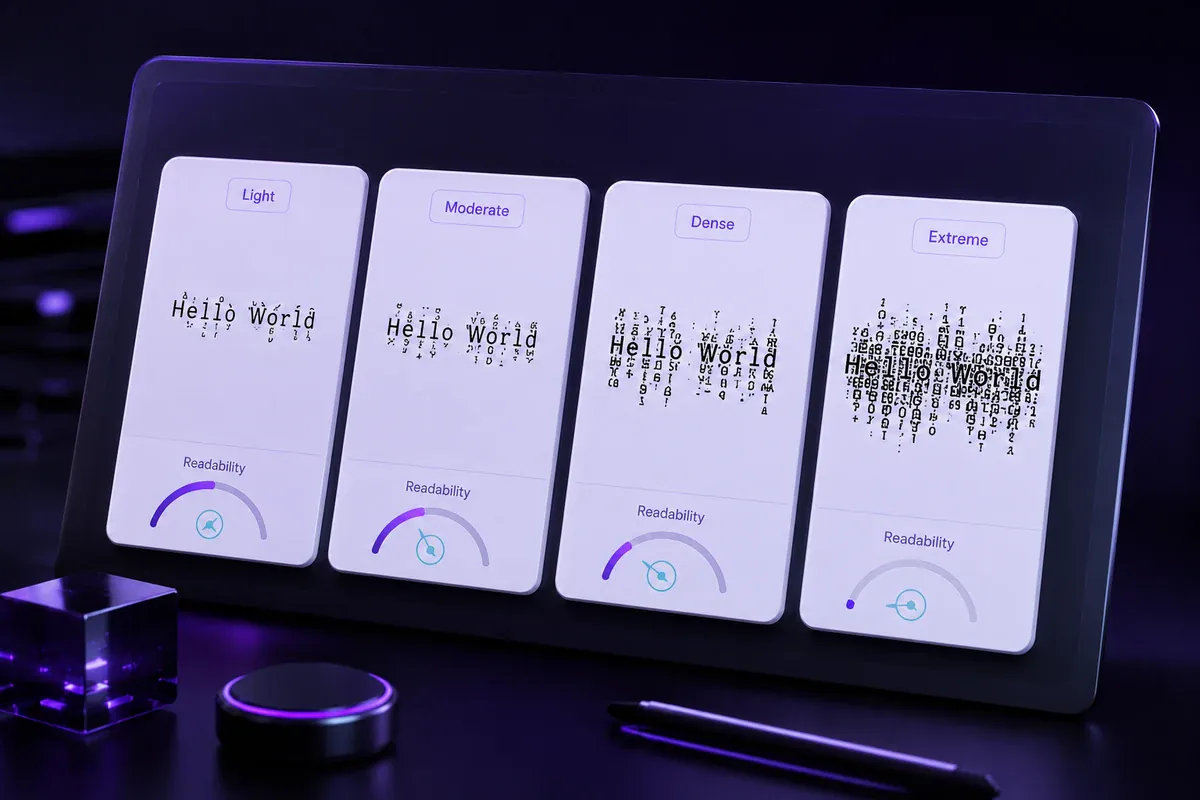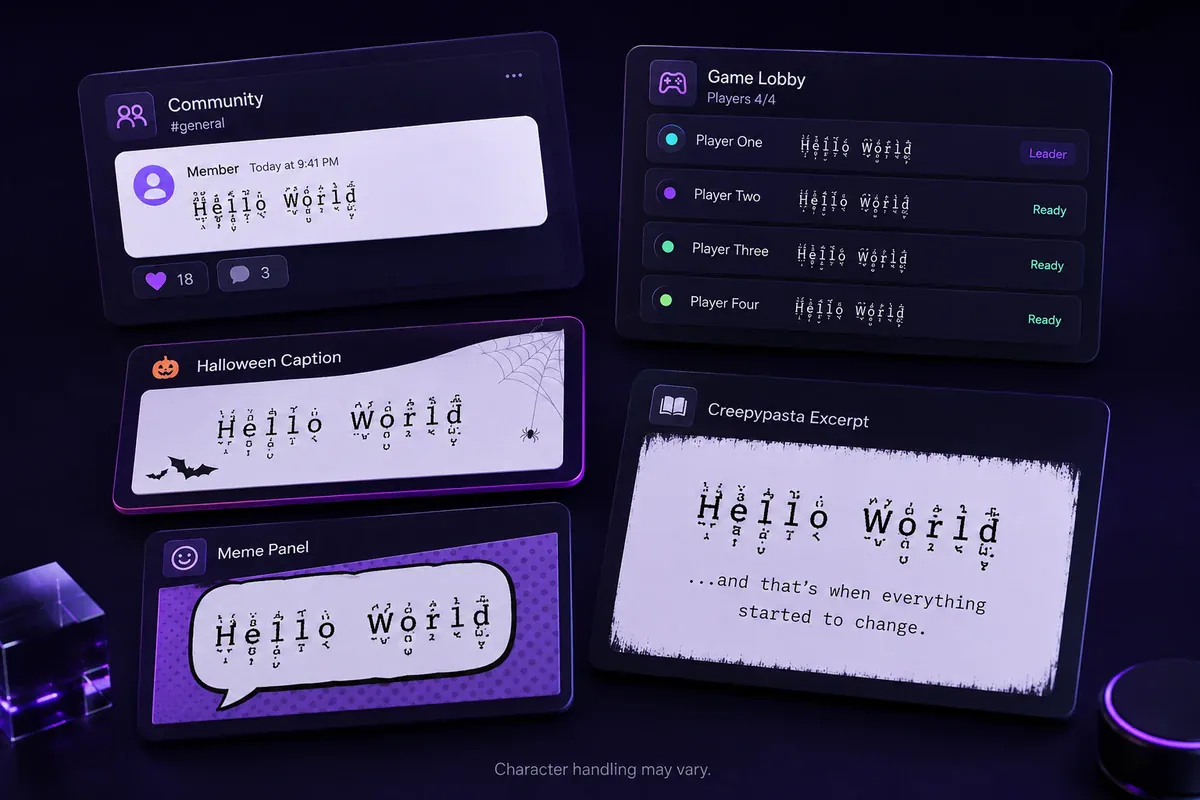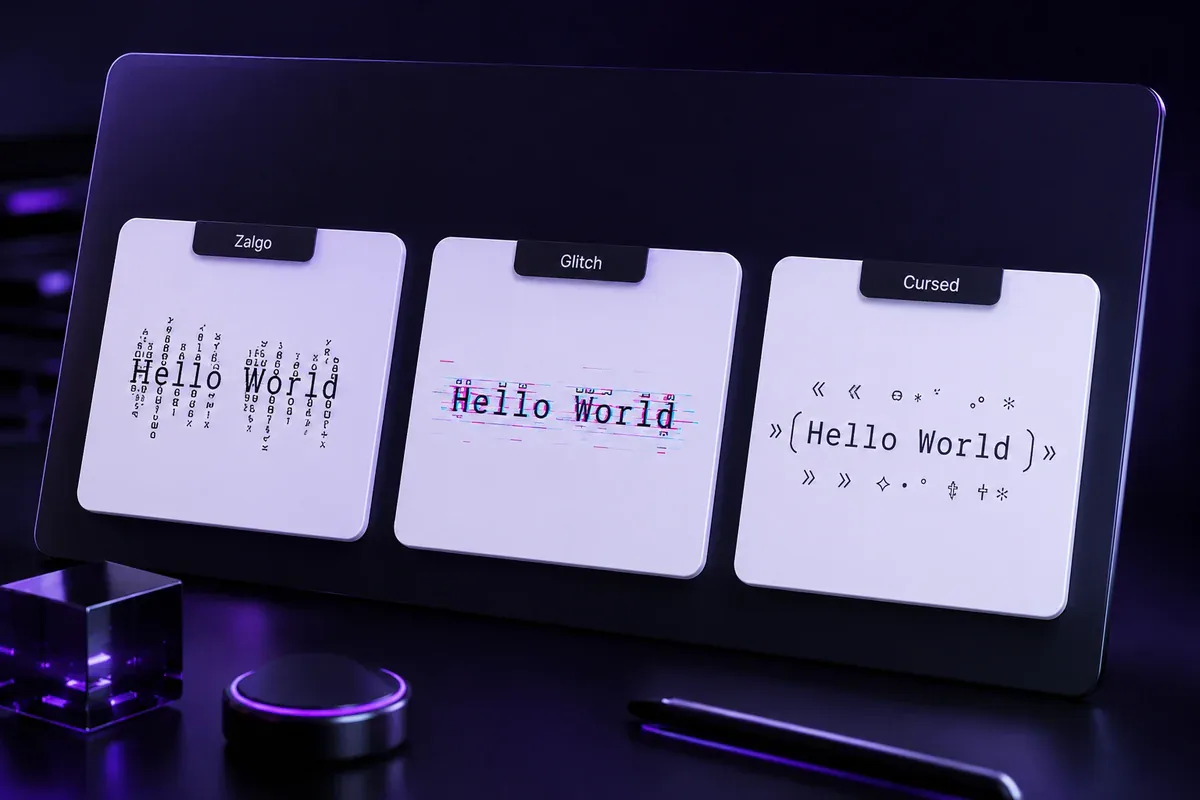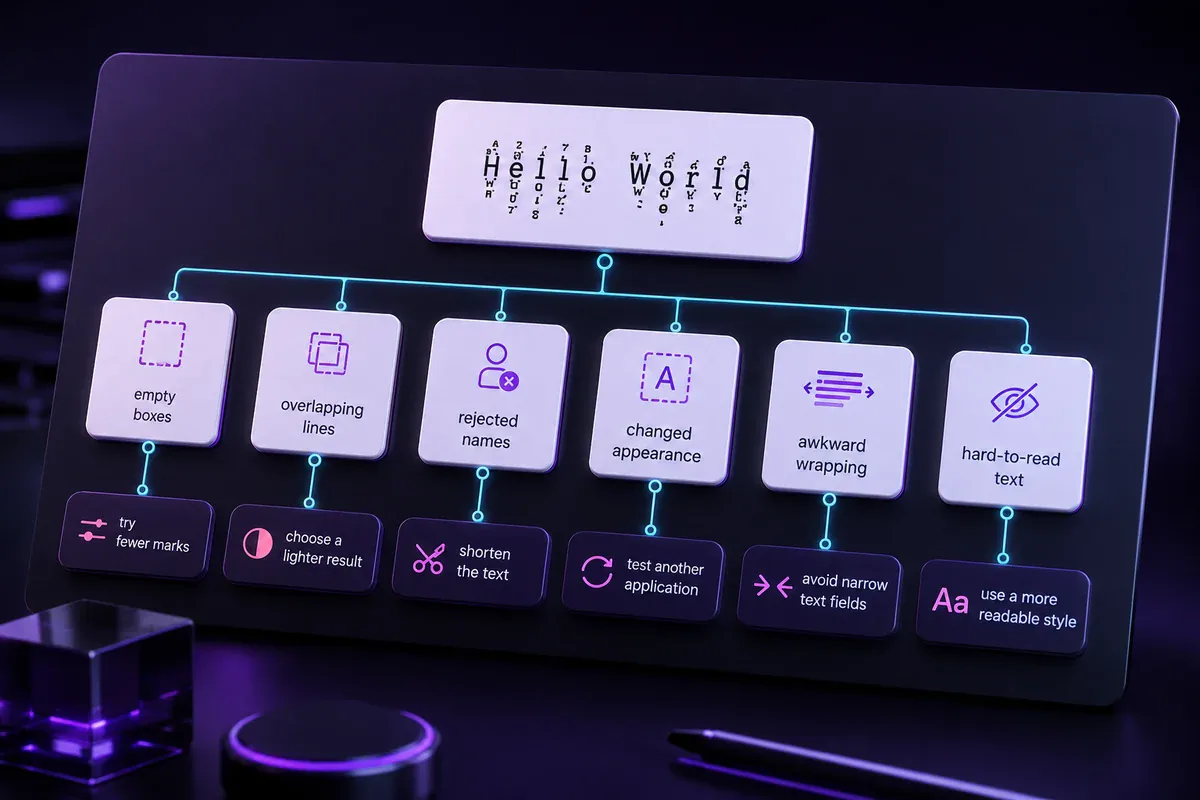
Zalgo Text Generator - Cursed Text Copy & Paste
Create corrupted Unicode text with this Zalgo text generator. Compare several styles and copy your preferred result for chats, captions, and memes.
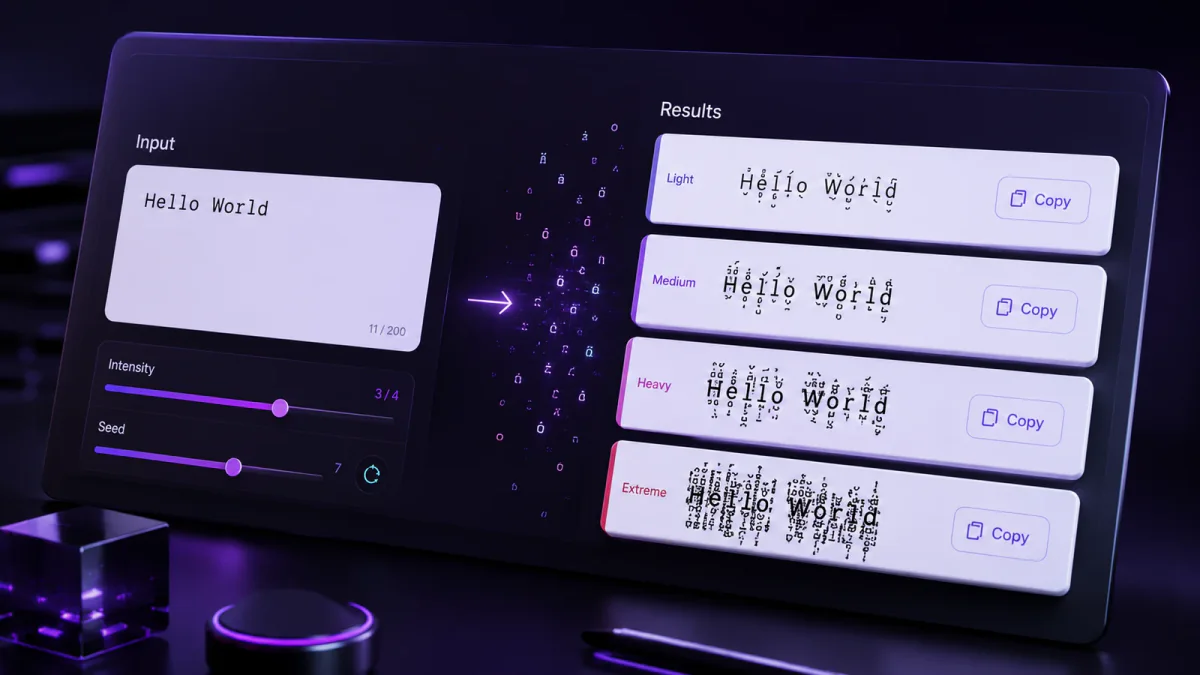
Create creepy, corrupted Unicode text with this Zalgo text generator. Enter a phrase, compare the generated styles, and copy the result that suits your name, caption, message, or creative project.
This page creates copy-and-paste Zalgo text, not downloadable font files. The effect comes from Unicode combining marks attached to ordinary letters, so it can be pasted into many text fields while still depending on each app's character support.
How to Use the Zalgo Text Generator
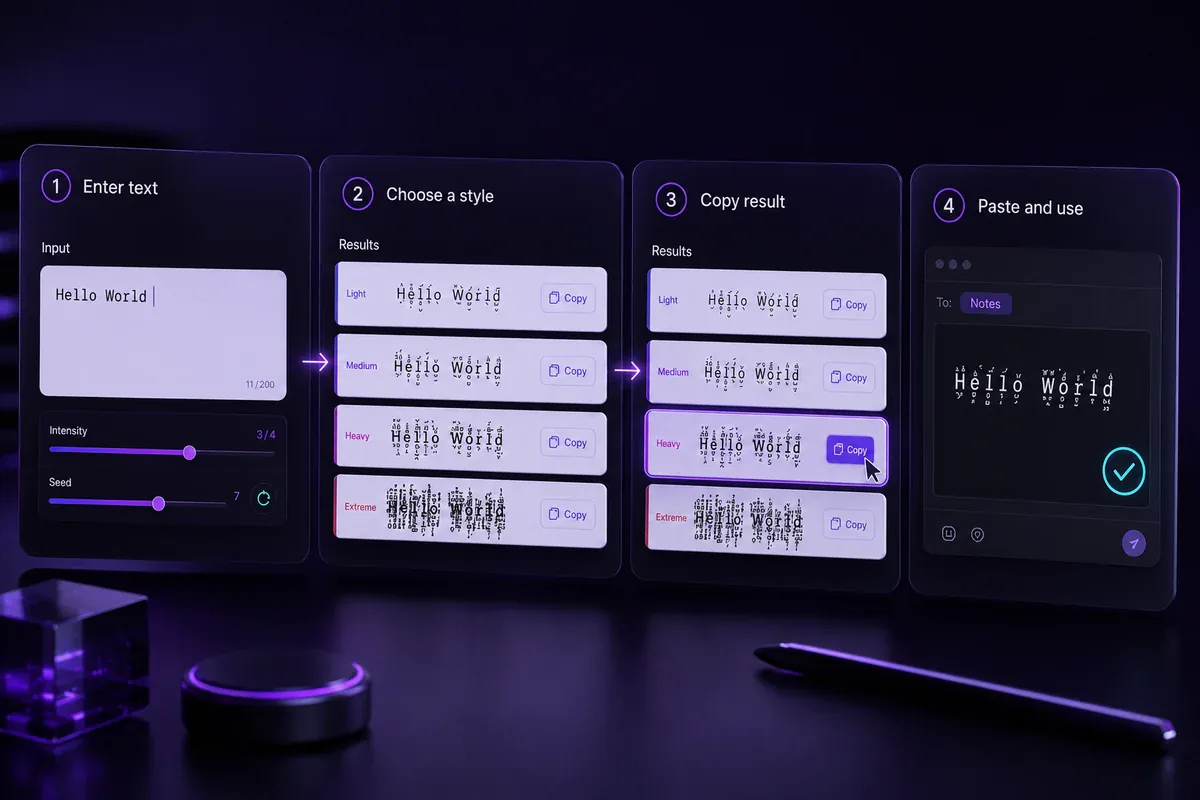
The generator follows a simple copy-and-paste process:
- Enter or paste a word, name, caption, or short message.
- Review the generated Zalgo result cards.
- Choose a version that remains clear enough for its purpose.
- Select Copy beside your preferred result.
- Paste it into the intended field and check its appearance.
Begin with a brief phrase because the differences between results will be easier to see. For example, enter The signal is lost and compare how each version changes the marks around the letters.
A community name or profile label should remain easy to recognise. A fictional warning, meme, or horror scene break can use denser marks because it only needs to be read once.
Quick Checklist Before You Copy
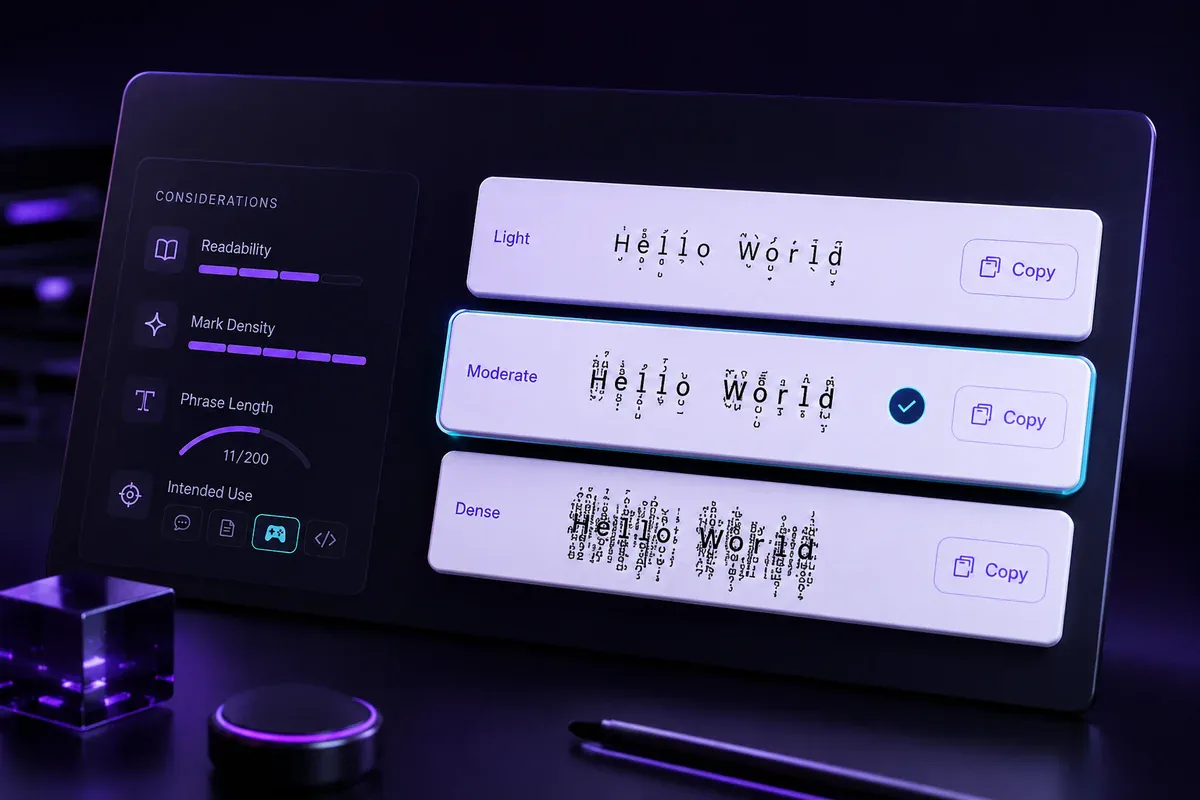
Check these points before selecting a generated result:
- Can you still recognise every word?
- Is the phrase brief enough to avoid crowded lines?
- Does the style suit a name, caption, meme, or story?
- Are essential details also available in plain text?
- Does the copied result fit inside its intended field?
The most corrupted version is not always the most useful. A lighter result often works better when readers need to recognise or remember the wording.
What Is Zalgo Text?
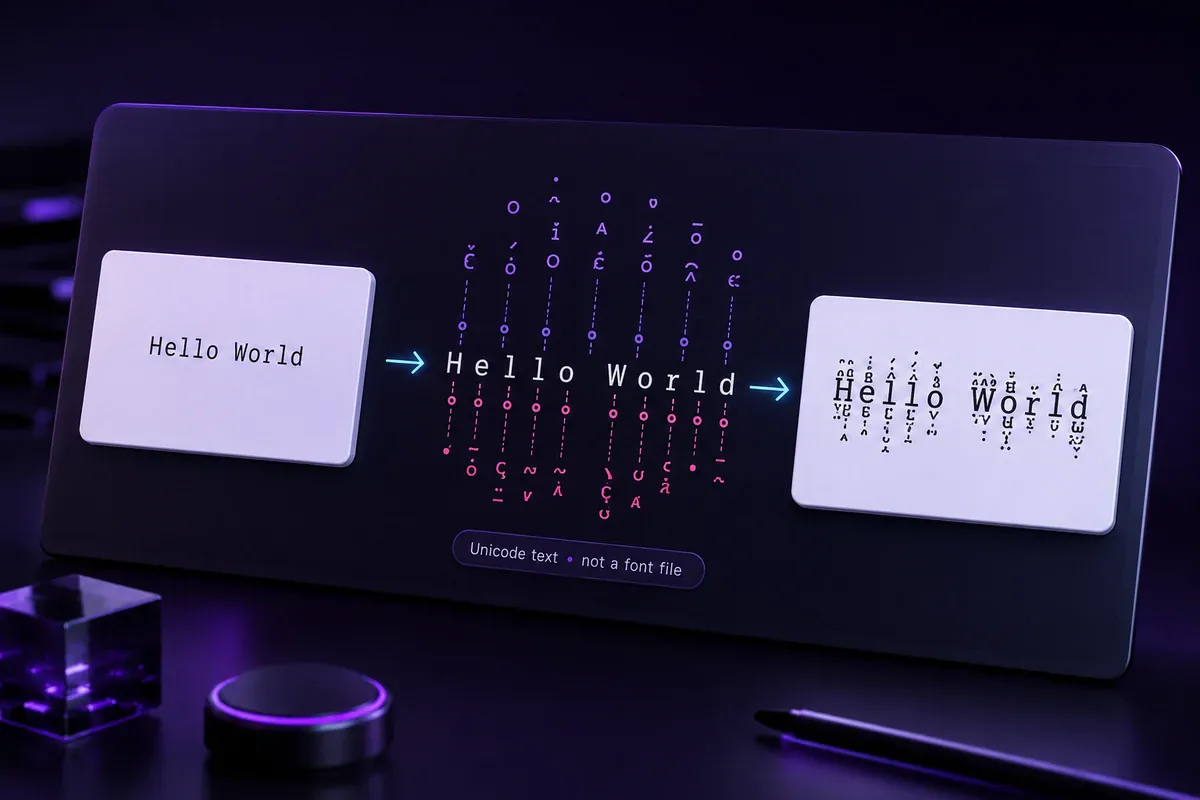
Zalgo text is ordinary writing with multiple Unicode combining characters added after its letters. These marks can appear above, below, or across the base characters, producing a corrupted or chaotic appearance.
People may search for this effect as a cursed font, demonic font, or corrupted font. Technically, the result is copyable Unicode text rather than a downloadable or installed font.
A plain word might begin as:
Hello
After combining marks are added, one possible result is:
H̴e̷l̶l̵o̸
The same sequence may look slightly different when another app, device, or font displays it.
Zalgo works best as a brief visual element. It can add tension to a horror heading, fictional warning, meme phrase, or corrupted transmission without making a full paragraph difficult to read.
How Zalgo Text Works with Unicode
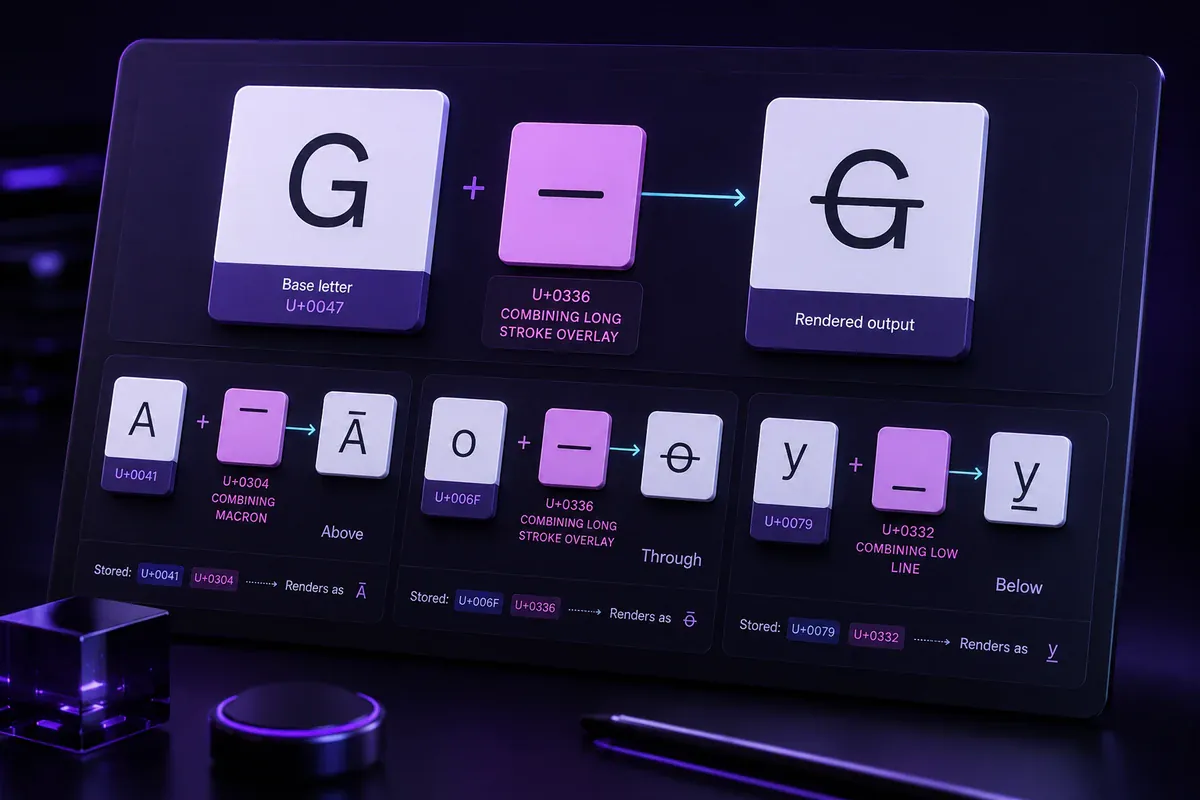
Unicode assigns code points to letters, punctuation, symbols, and combining marks. The U+0300–U+036F range is named the Combining Diacritical Marks block in the official Unicode character chart.
A combining character follows the base character it affects in the stored sequence. A text renderer then places the mark relative to that base letter.
For example, U+0336 COMBINING LONG STROKE OVERLAY can follow the letter G:
G + U+0336 COMBINING LONG STROKE OVERLAY → G̶
Several combining characters can follow the same base letter. When many are added, they can stack upward, downward, or through the character to form the familiar Zalgo effect.
The Unicode Core Specification explains how combining characters relate to base characters. It also notes that software does not have to display every possible character combination in the same way.
Marks Above the Letter
Above marks extend over the normal text line. Several can stack vertically and make a word appear unstable or stretched.
Marks Through the Letter
Overlay marks cross the base characters. They can make a phrase appear scratched, interrupted, or damaged.
Marks Below the Letter
Below marks extend beneath the baseline. Dense combinations may touch nearby lines when a page or app uses tight spacing.
Can I use Zalgo text on Roblox?
Roblox filters platform text, including chat and display names. A short, readable Zalgo result is more likely to be usable than a dense one, but you should test the exact field before saving.
How does a Zalgo text generator work?
A Zalgo text generator places selected Unicode combining marks after ordinary letters. The rendering system displays those marks around the base characters, forming the corrupted effect.